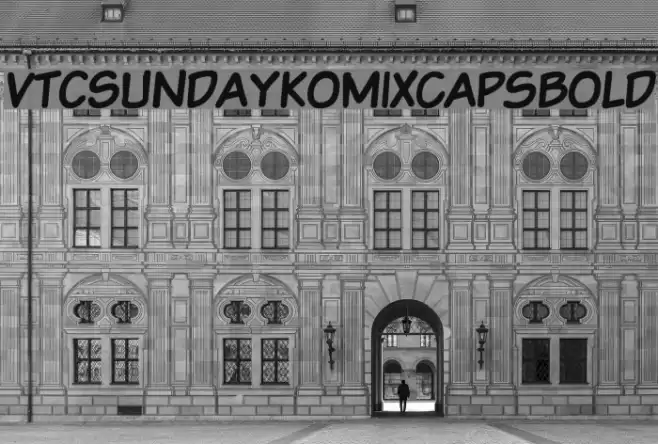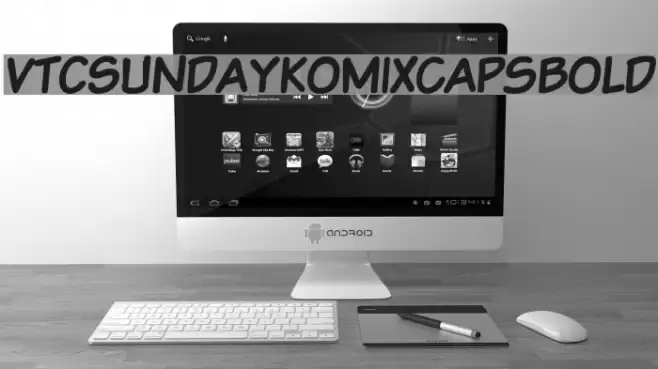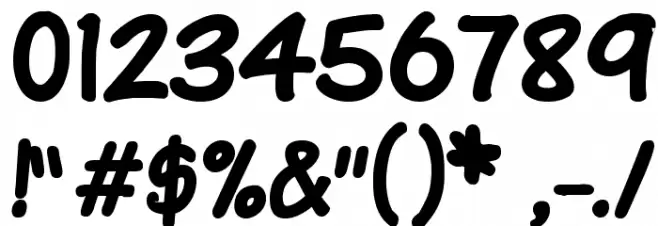
VTCSundaykomixcapsBold Font
VTCSundaykomixcapsBold Description
This playful and bold font features a hand-drawn, comic-style aesthetic with rounded edges and a casual, informal appearance. The letters are slightly slanted, giving them a dynamic and energetic feel. The uppercase and lowercase characters maintain a consistent style, with a smooth flow and uniform stroke width. Numbers and special characters are designed to match the whimsical nature of the alphabet, making the font suitable for creative and fun projects. The overall look is approachable and friendly, ideal for capturing attention in a lighthearted context.
A bold, comic-style font with a playful and informal design from Uncategorized fonts.
- Proposed Projects: Ideal for comic books, children's books, playful branding, and creative posters.
- Overall Style: Playful